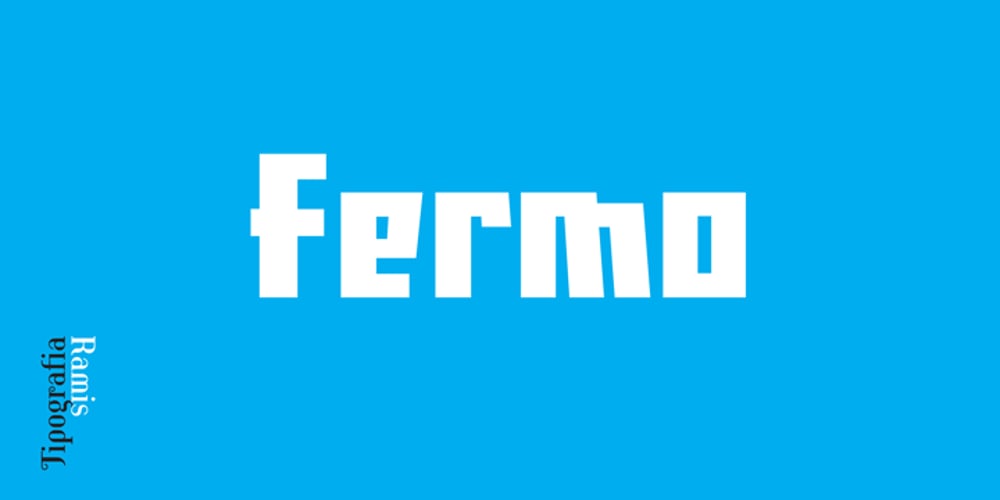
Fermo TRF
Fermo TRF font
Fermo TRF Font Family was designed by Ramiz Guseynov and published by TipografiaRamis. Fermo TRF contains 6 styles and family package options. Taking into consideration some complaints about lack of capital letters and deficiency of heavier weight styles, the Fermo typeface was redesigned to replace the existing font, dated 2002. New Fermo includes two subfamilies—Fermo TRF and Fermo-Uni TRF. Both fonts now consist of three weight styles—light, regular and bold—with significant contrast. During the updating process some minor glyph shape adjustments and changes have been made. Fermo TRF’s main distinctions from the previous font are the new capital letters and additional weight (light) style. Fermo-Uni TRF is a unicase font with an additional lightweight style. Fermo is recommended for use as a display font. In large size settings negative tracking is recommended.